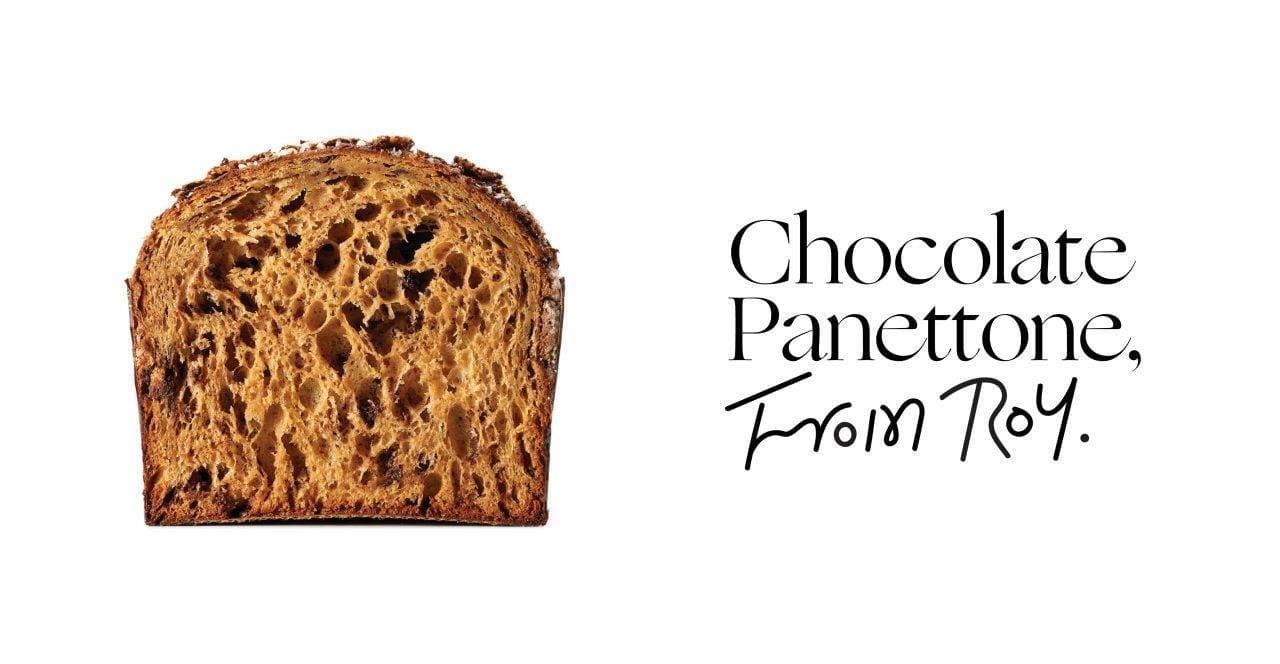
Panettone from Roy
Panettone from Roy was founded in 2015 by Roy Schvartzapel and is based in NYC. Roy partnered with Base Design, an international branding studio with a location in NYC to create sleek, minimalist branding for Roy's product line of Panettone. The branding features our typeface Ogg in all of the marketing, digital and packaging materials.